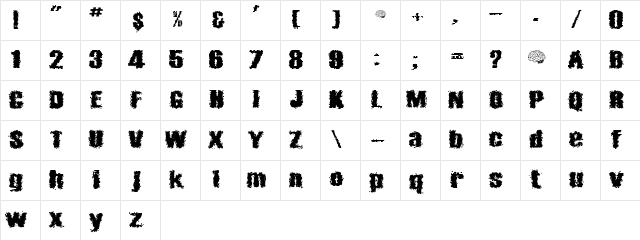
Barricades Regular Free Font
Barricades Regular
Design Context for Barricades
Barricades is a composed and adaptable typeface that performs quietly and consistently across a wide range of design contexts.
Pro Tip: Use Barricades in both headline and body roles to test its range before committing to a single application.